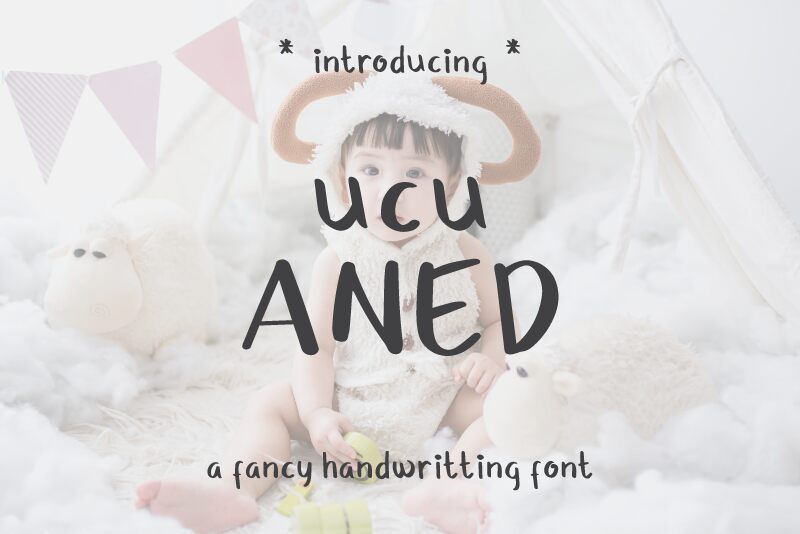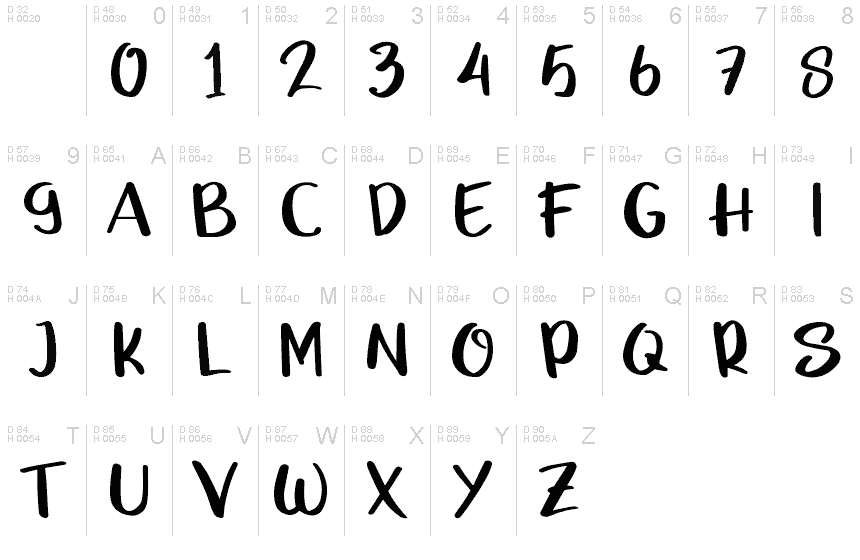
UcuAned
Hi! Ucu Aned is a Fancy Handwriting Font playfull and cute font style. It's allowing you to create beautiful hand-made typography in an instant.
Ucu Aned is suit to use for any kind of design such as branding projects, logo, wedding designs, social media posts, advertisements, product packaging, product designs, label, photography, watermark, invitation, poster, t-shirt design, stationery and any projects that need handwriting taste.